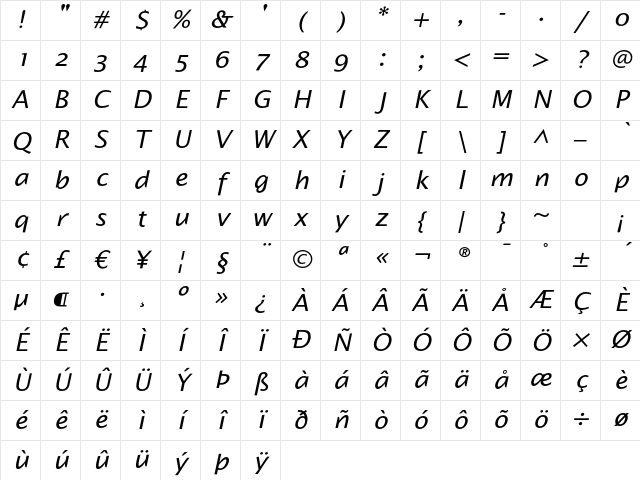
Alphabet2 Italic
Design Context for Alphabet2
Alphabet2 is a composed and adaptable typeface that performs quietly and consistently across a wide range of design contexts. The slanted form adds forward momentum and visual energy.
Pro Tip: Use Alphabet2 for emphasis, pull quotes, and subheadings where its slanted energy can add rhythm to the layout.